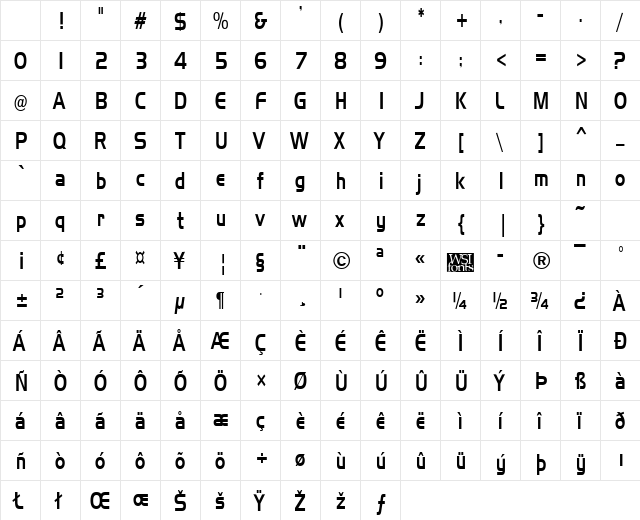
Slickerest normal
Style: normal
Design Context for Slickerest
Slickerest is a composed and adaptable typeface that performs quietly and consistently across a wide range of design contexts.